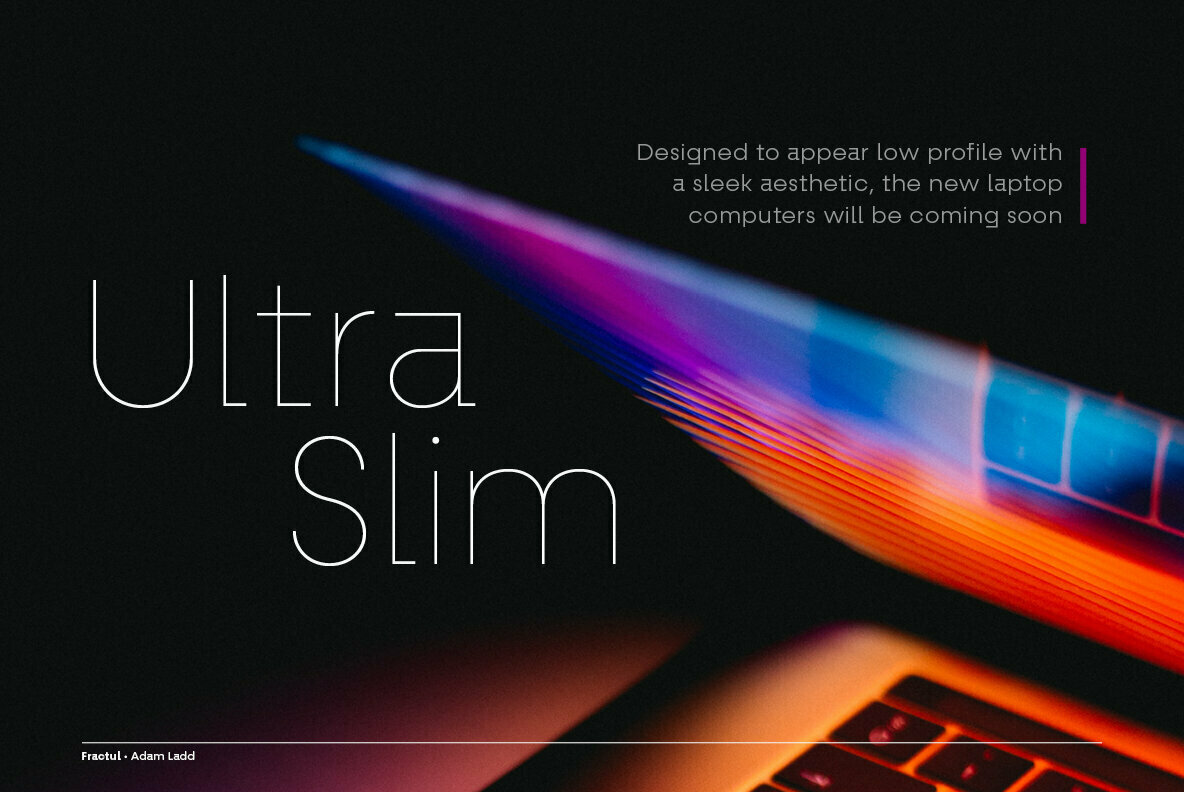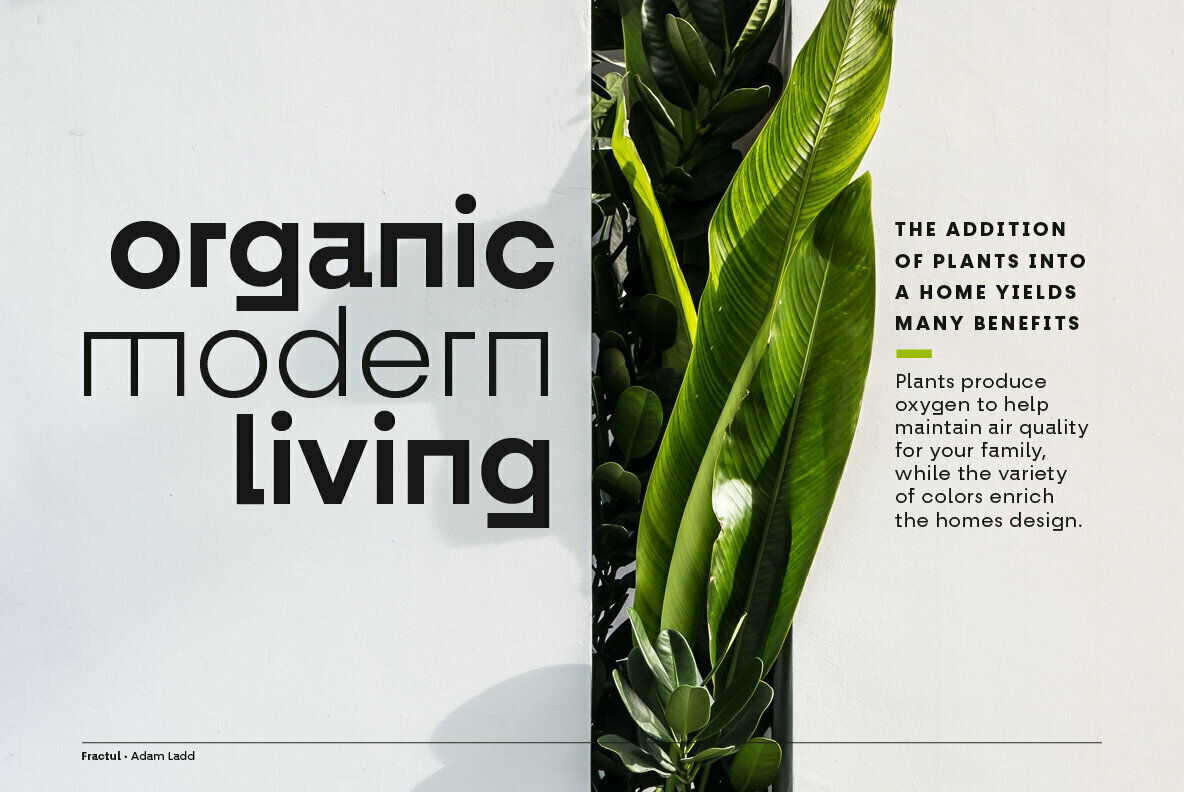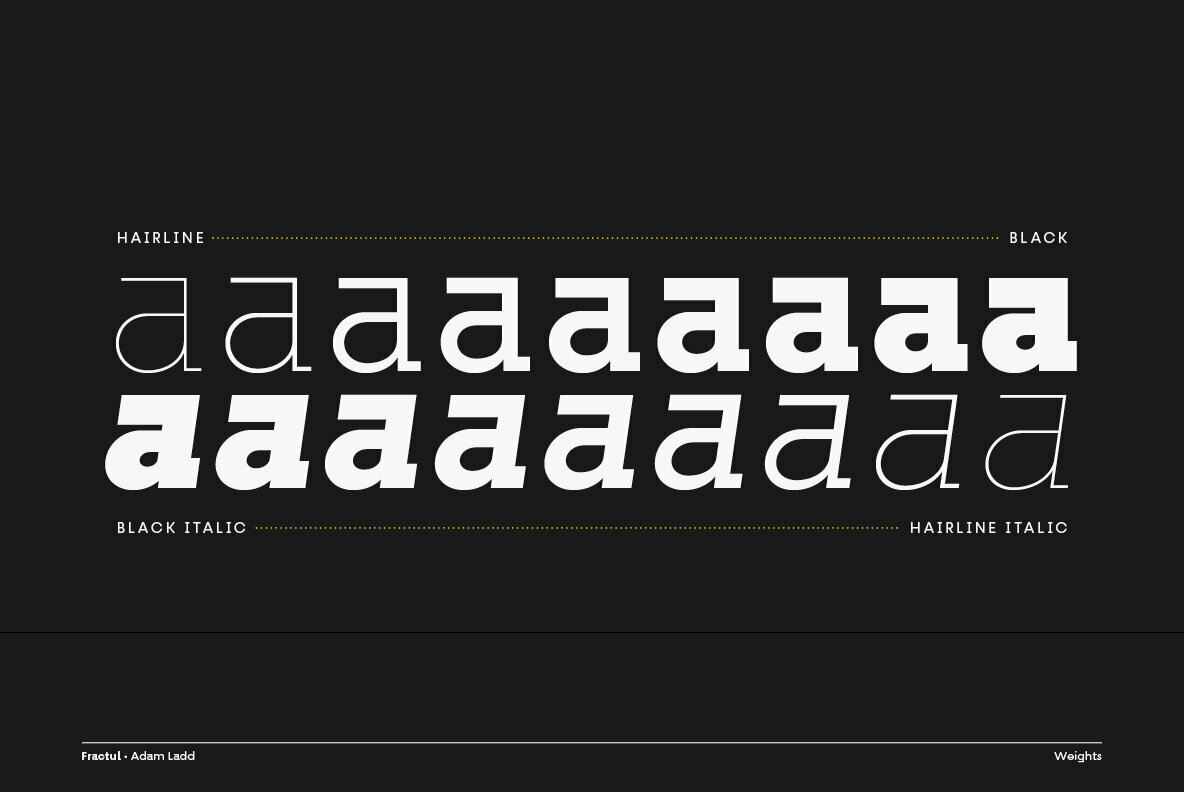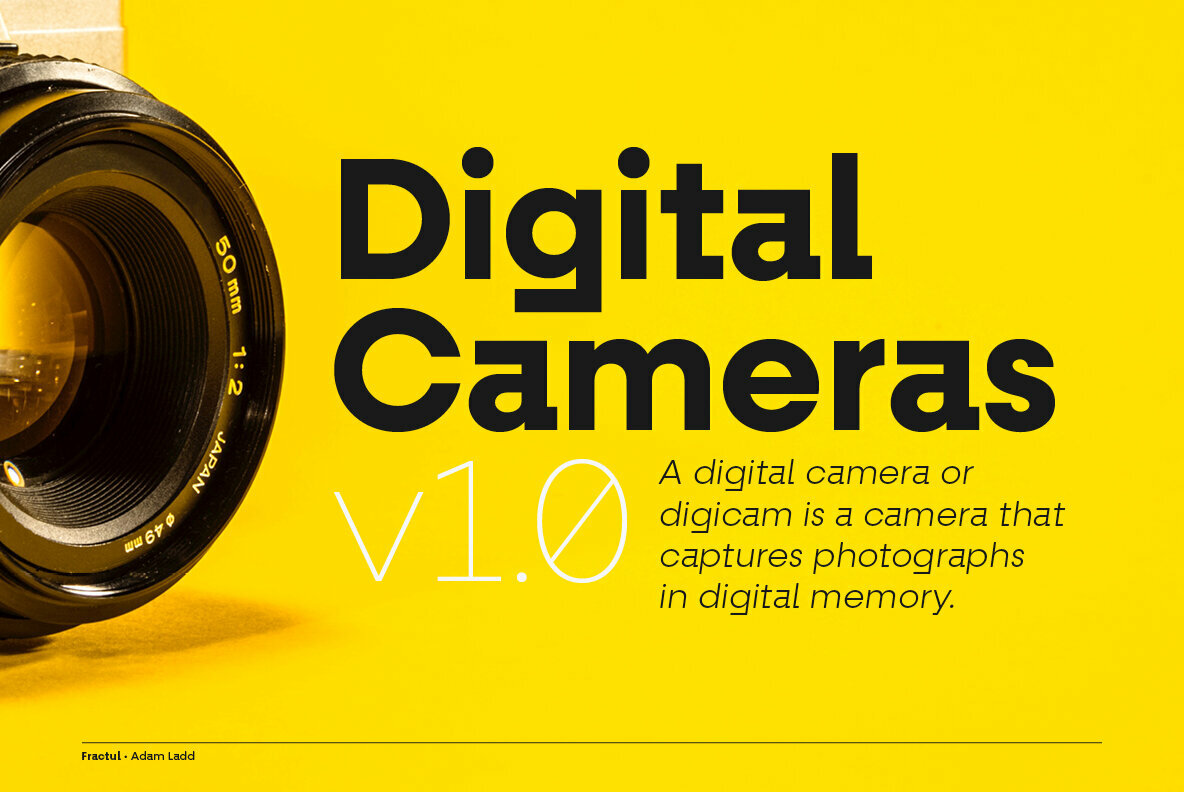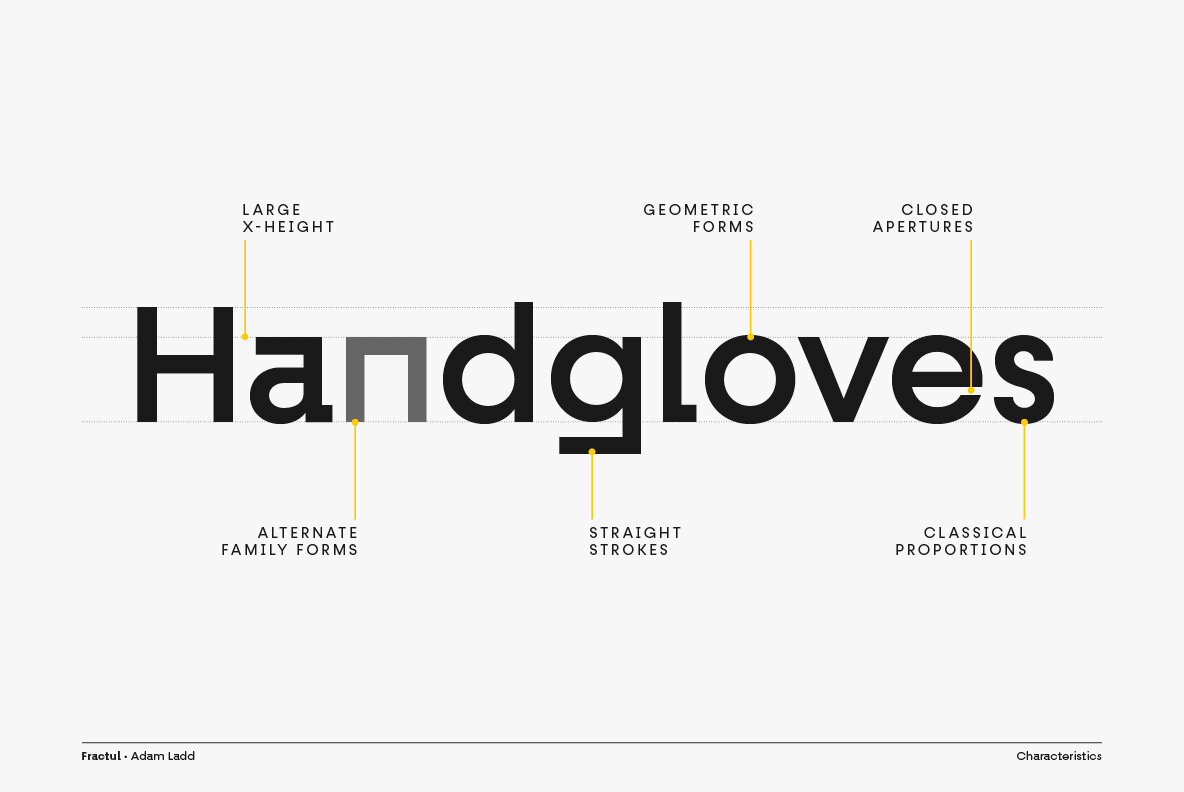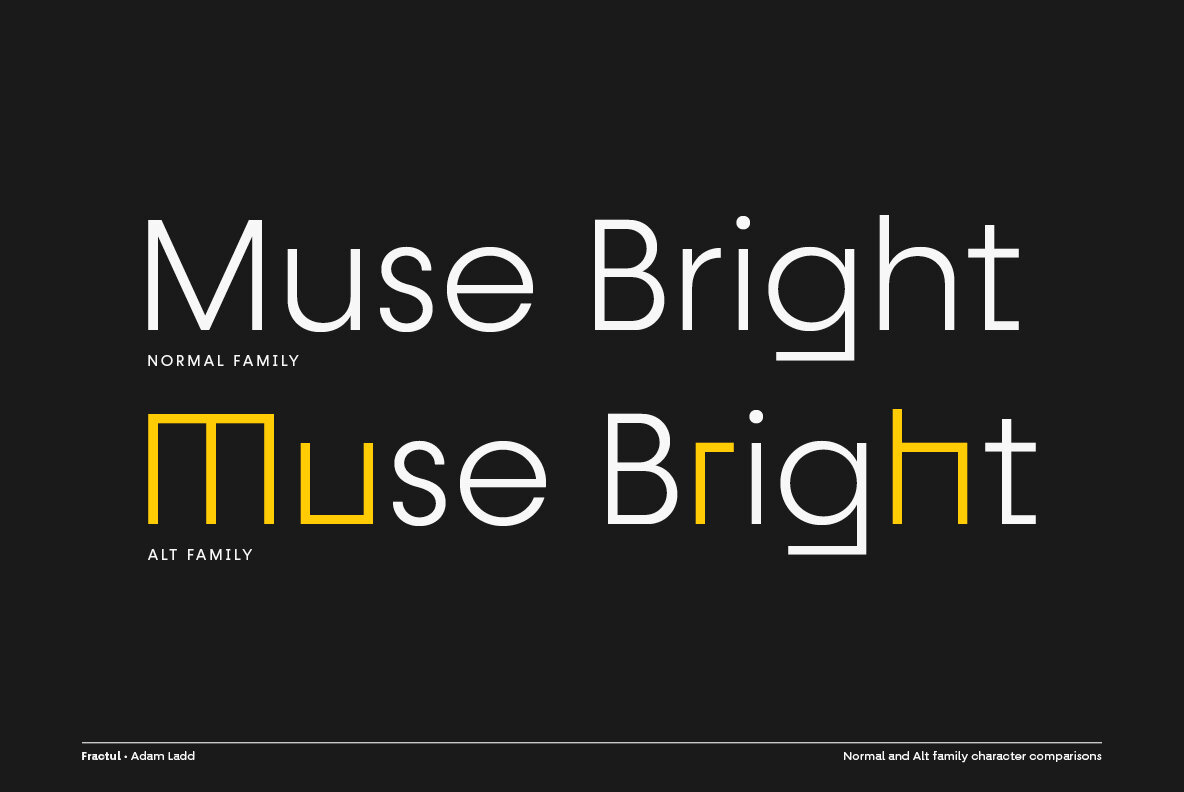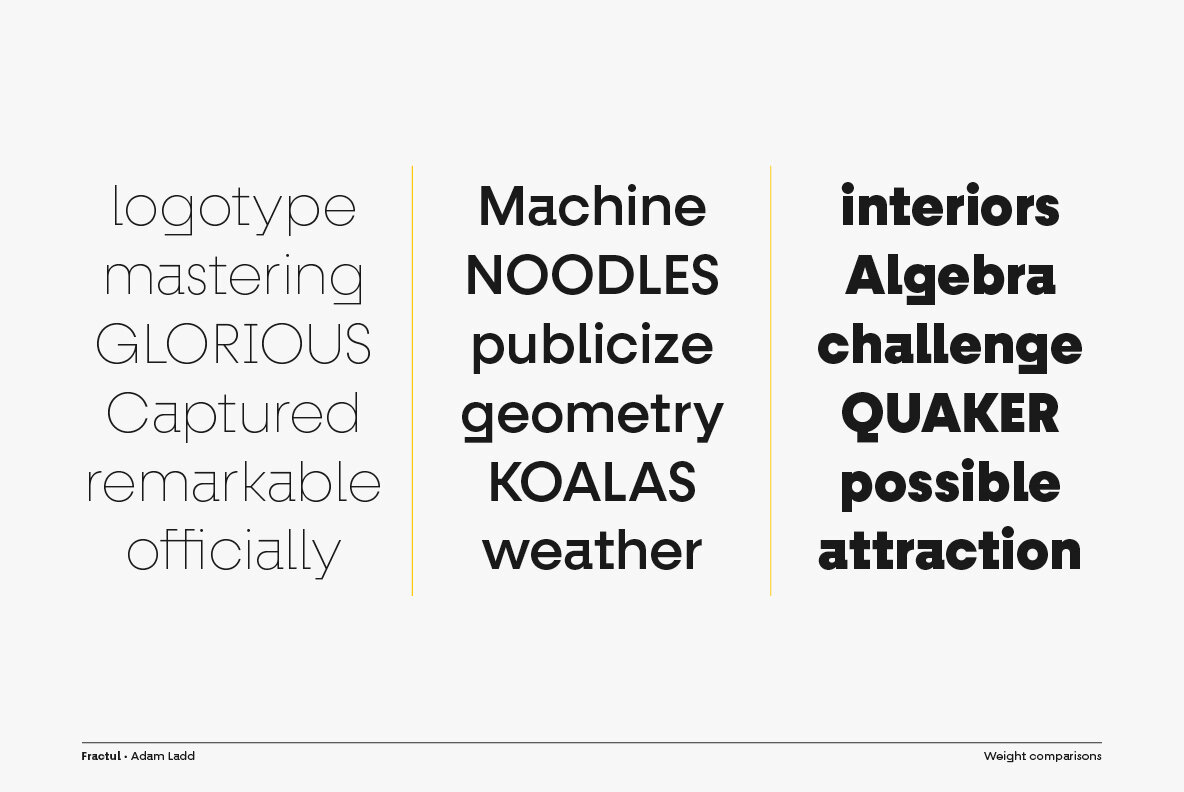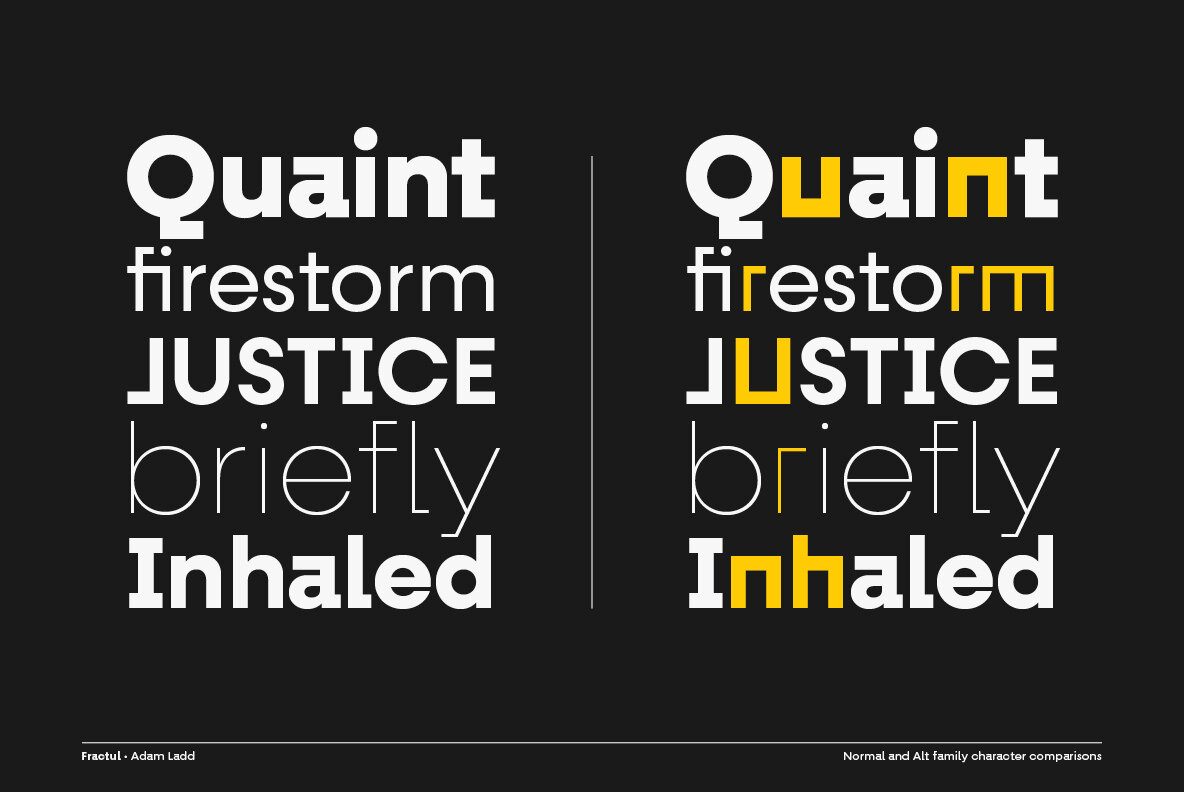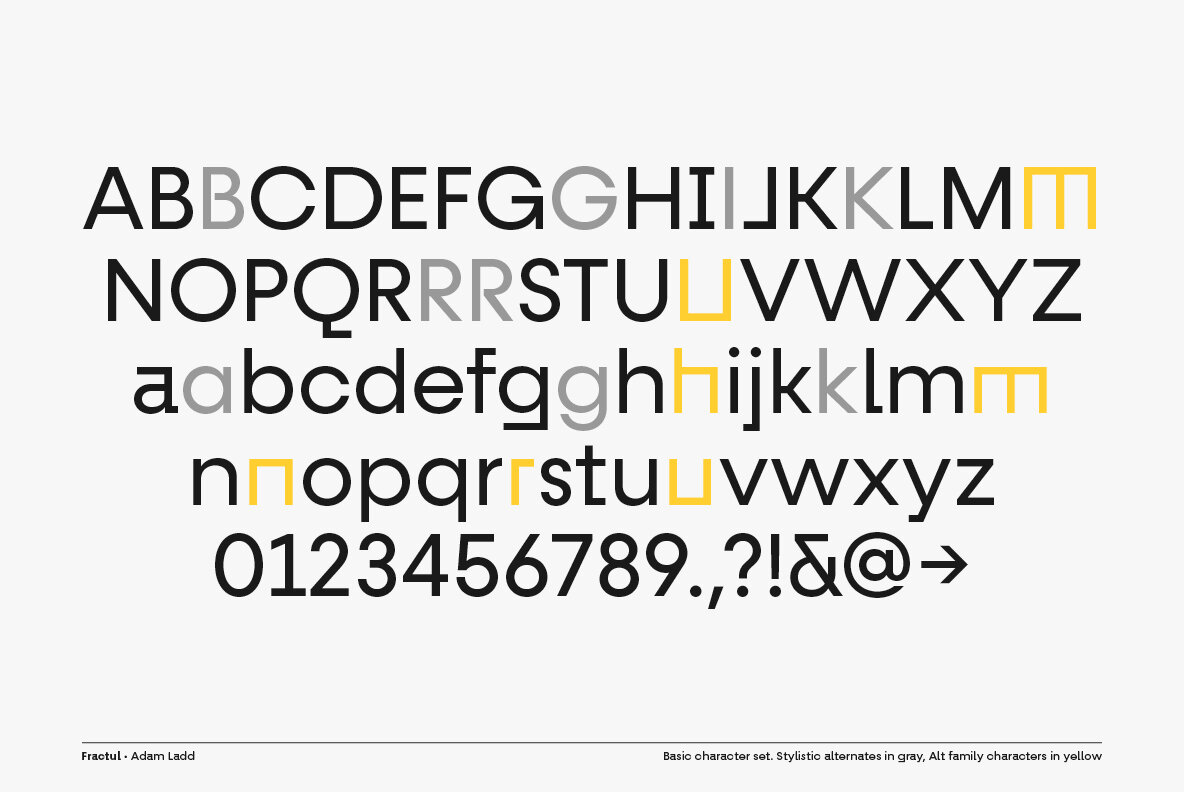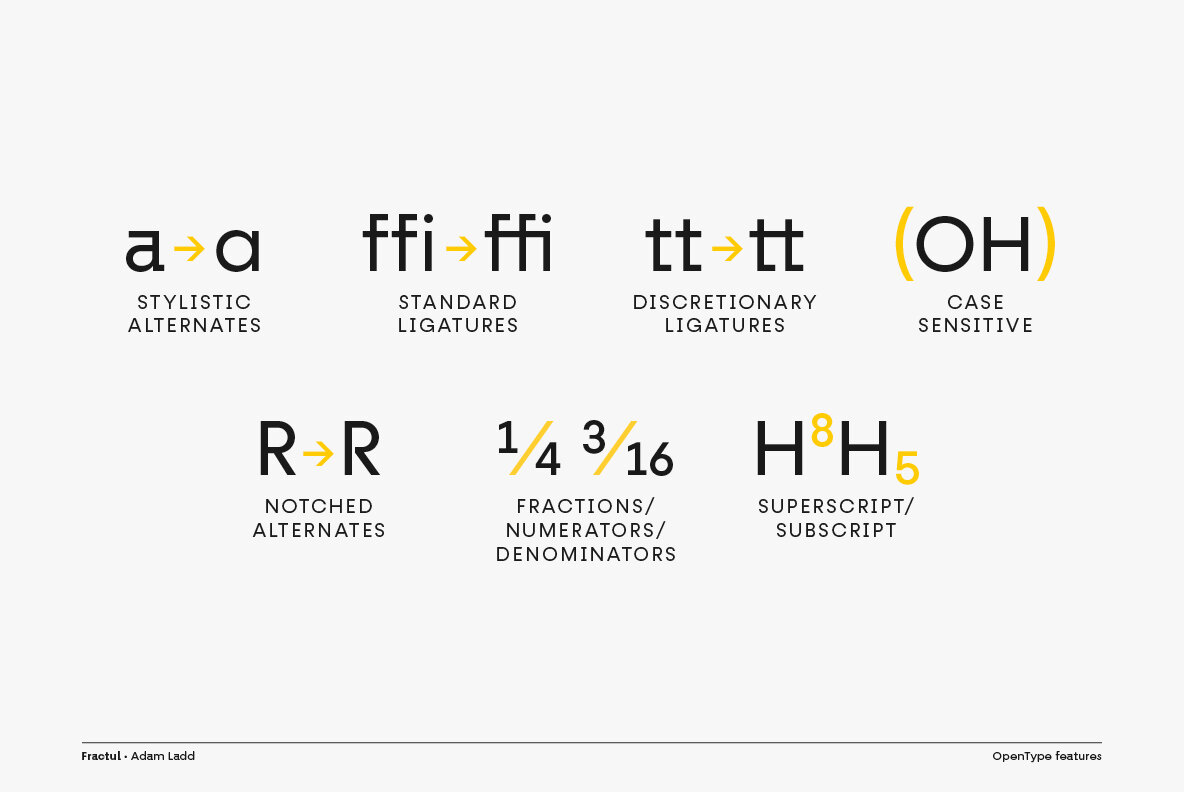
Fractul Font
Fractul is a geometric sans serif with architectural qualities. Built from the Konnect family—which features geometric forms, classical proportions, a large x-height, and closed apertures—this typeface introduces even more unique and display oriented design details. You'll see this most evidenced in characters like a, f, g, t, y, etc. where certain strokes have been straightened for an angular and modern appearance.
Also included is Fractul Alt. This alternate type family furthers the angular design by styling characters like m, n, u, etc. to be rectangular. With this family employed, the typographic voice becomes a little more distinct or avant-garde. Easily switch between these two families to see what works best for the design.
Fractul has many OpenType features:
- Multiple stylistic alternates (6 stylistic sets)
- Standard and discretionary ligatures
- Case-sensitive punctuation for All Caps
- Fractions, numerators, denominators
- Superscript, subscript
- Slashed zero
With over 600 glyphs, this font has extensive Latin language support (100+ Latin languages) for Western, Central, and South Eastern European.